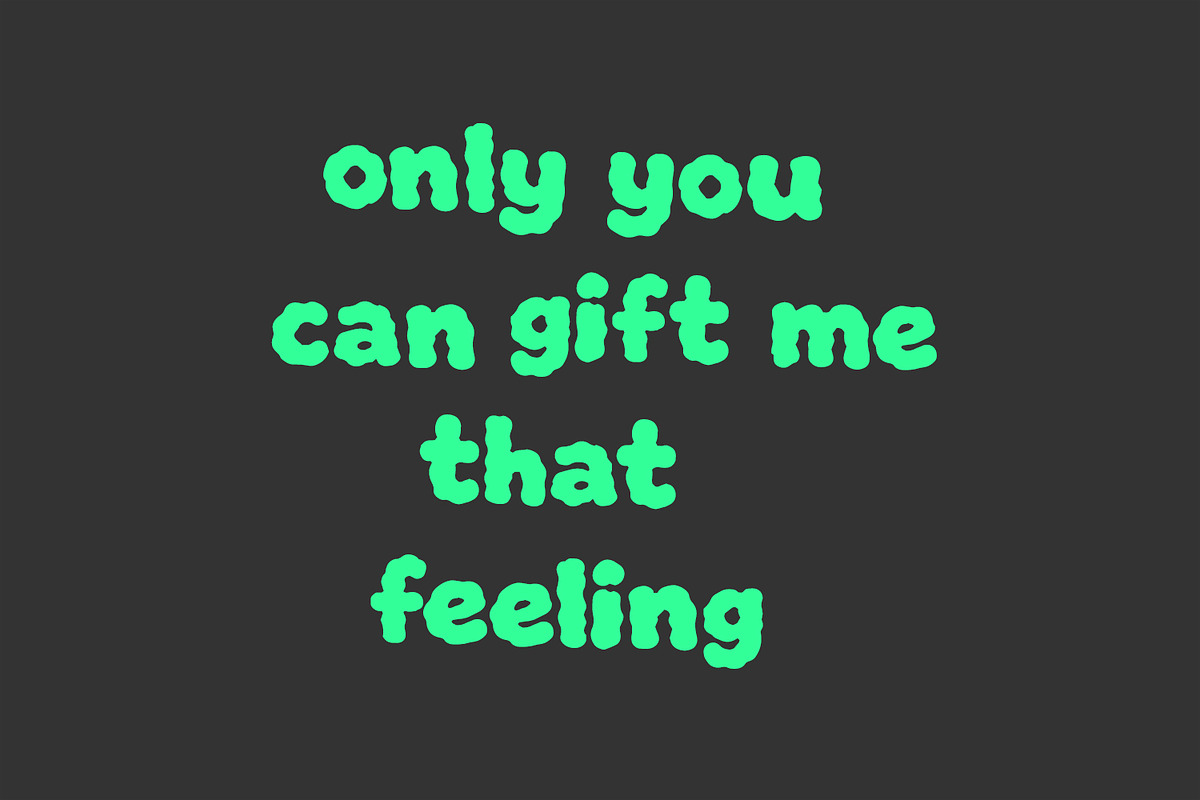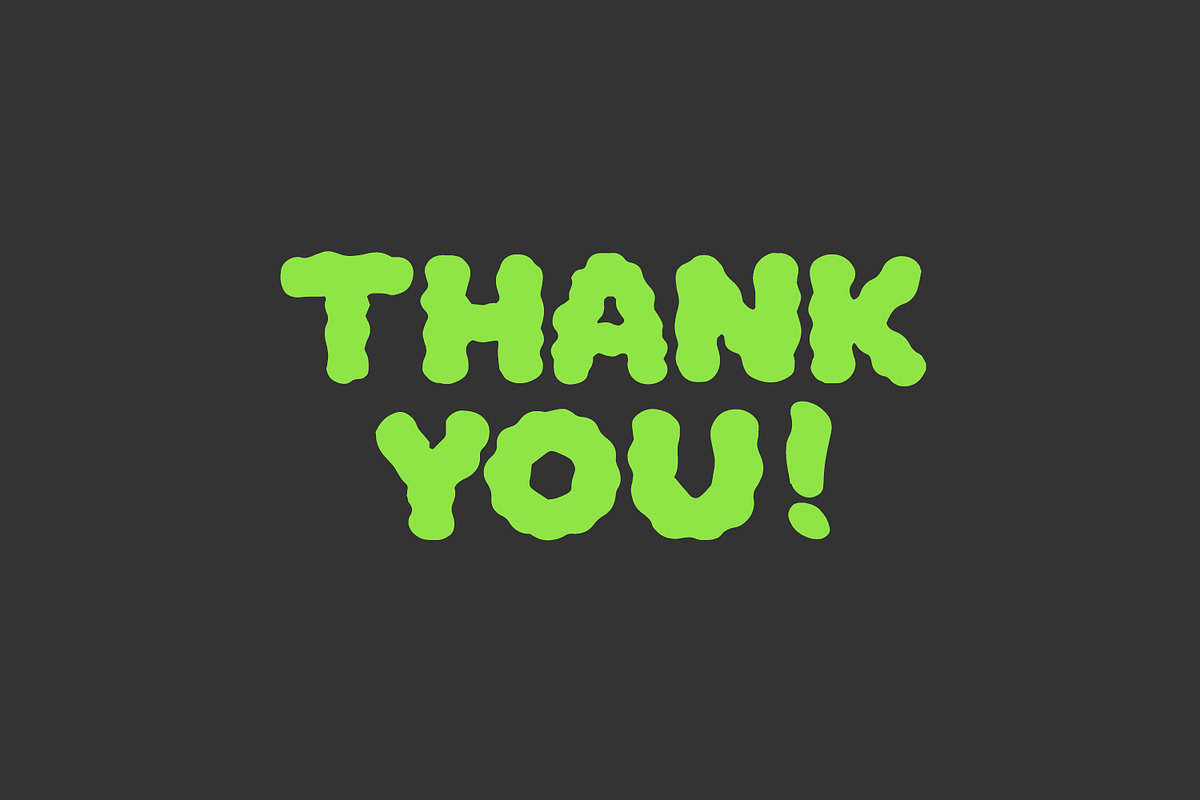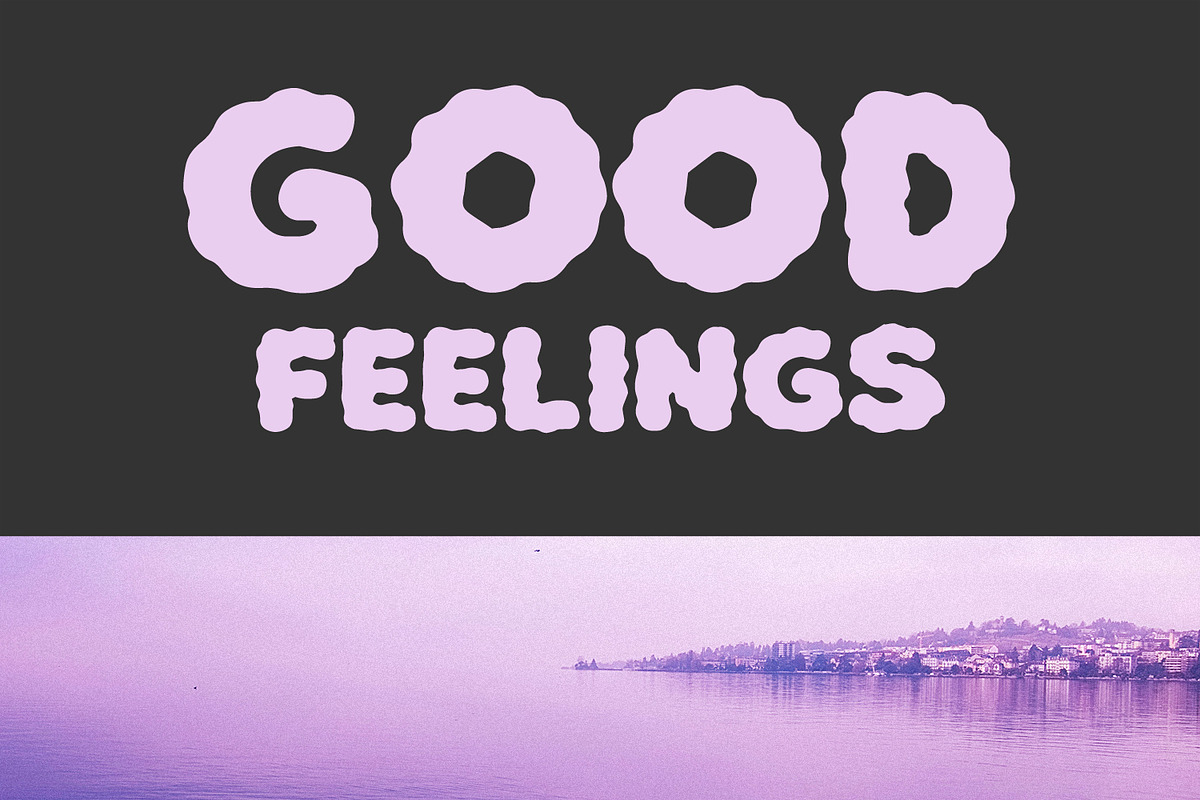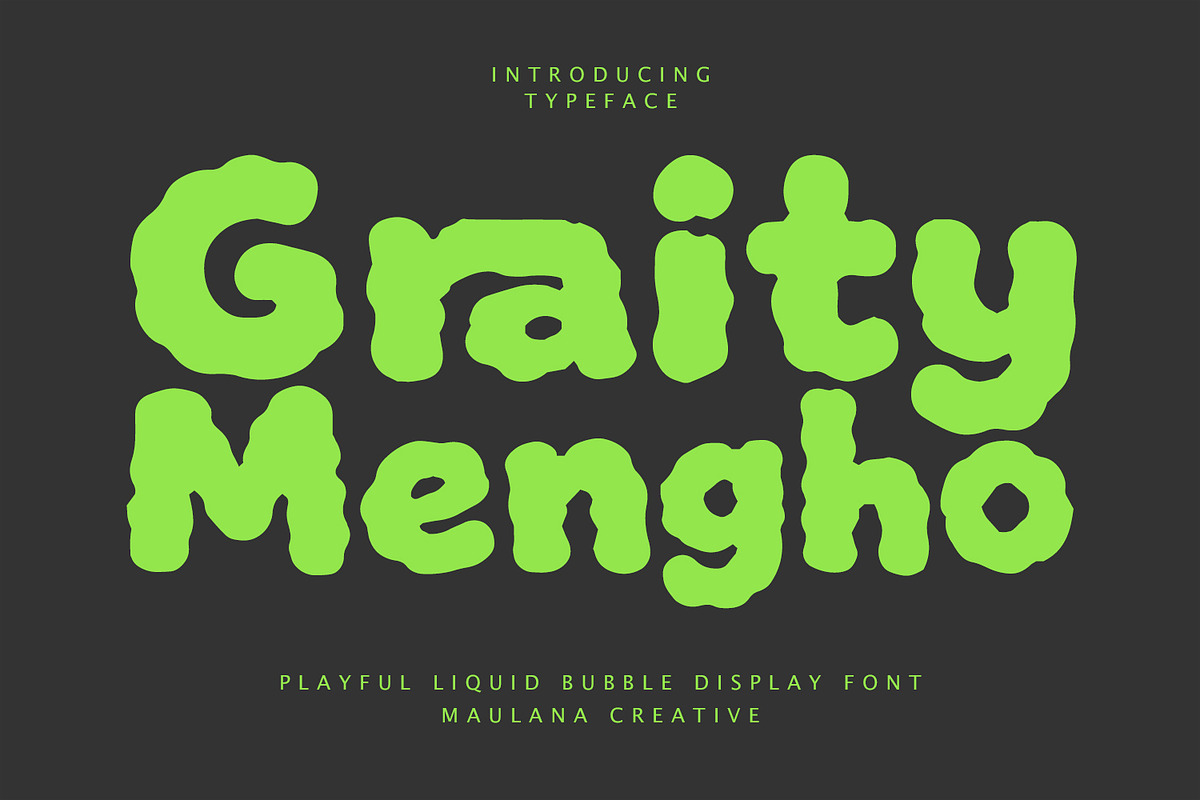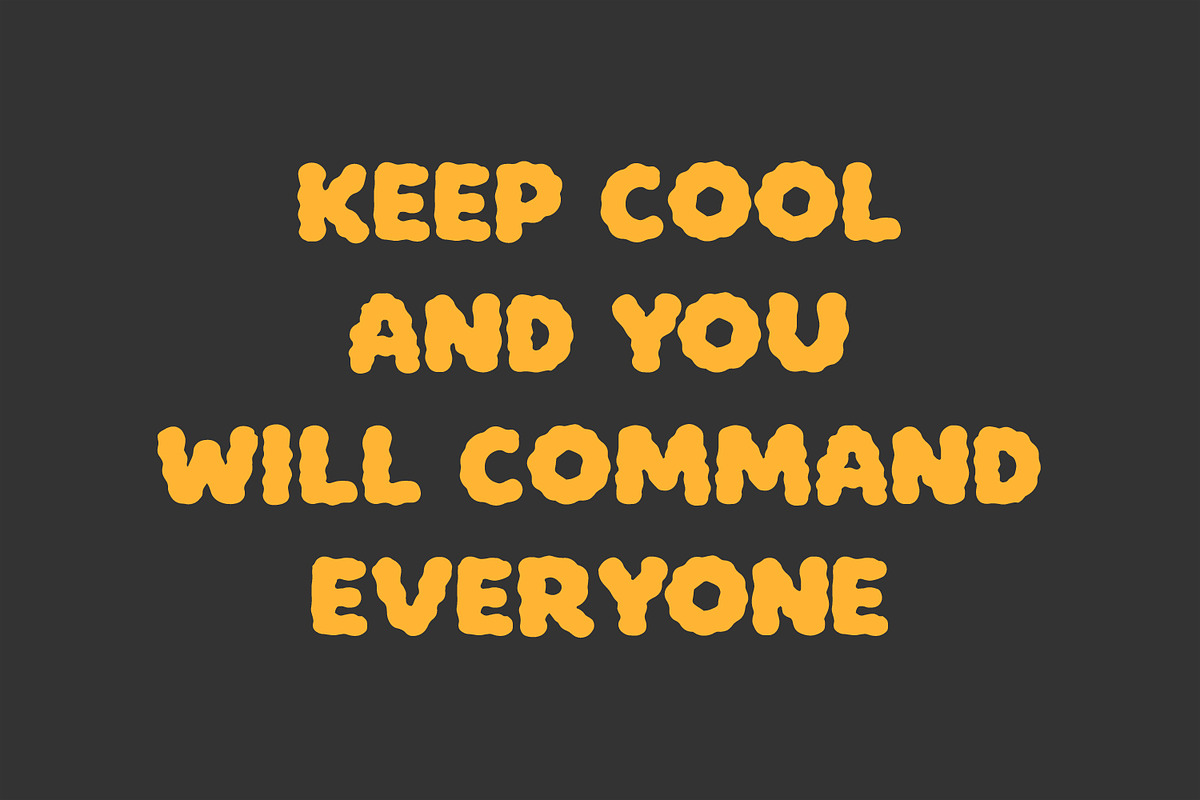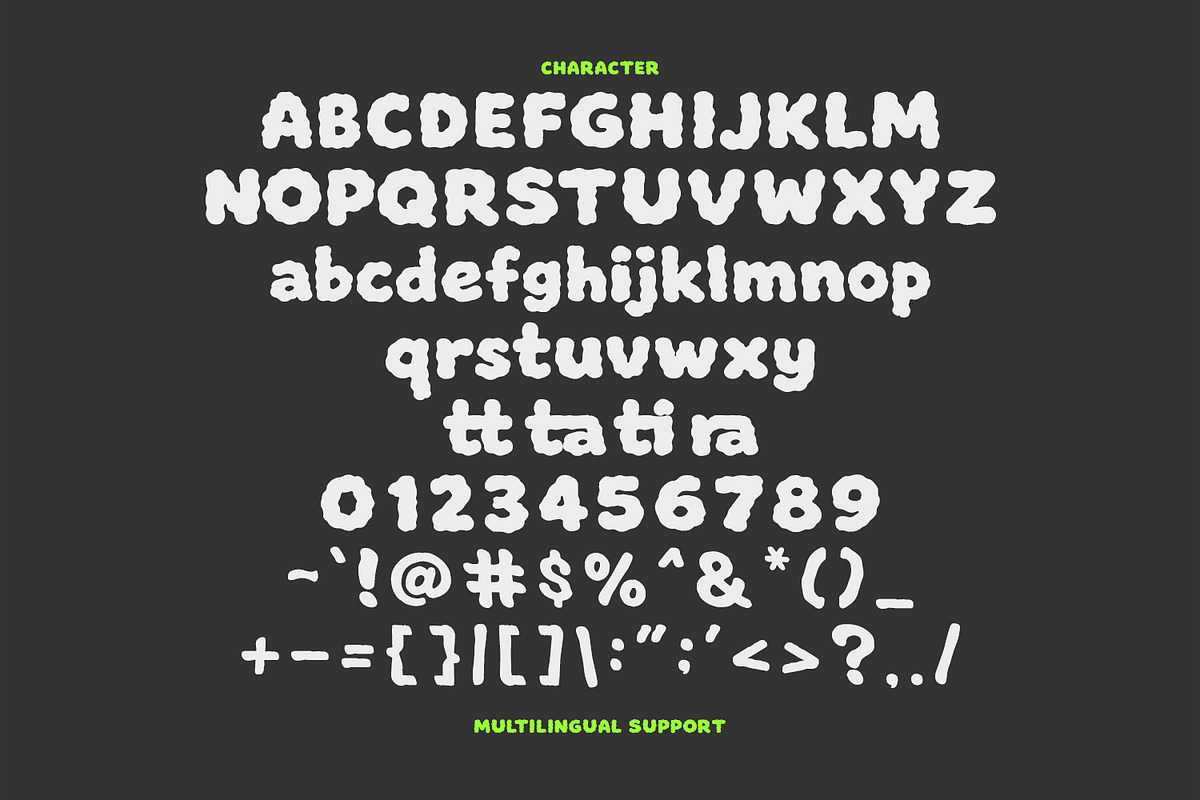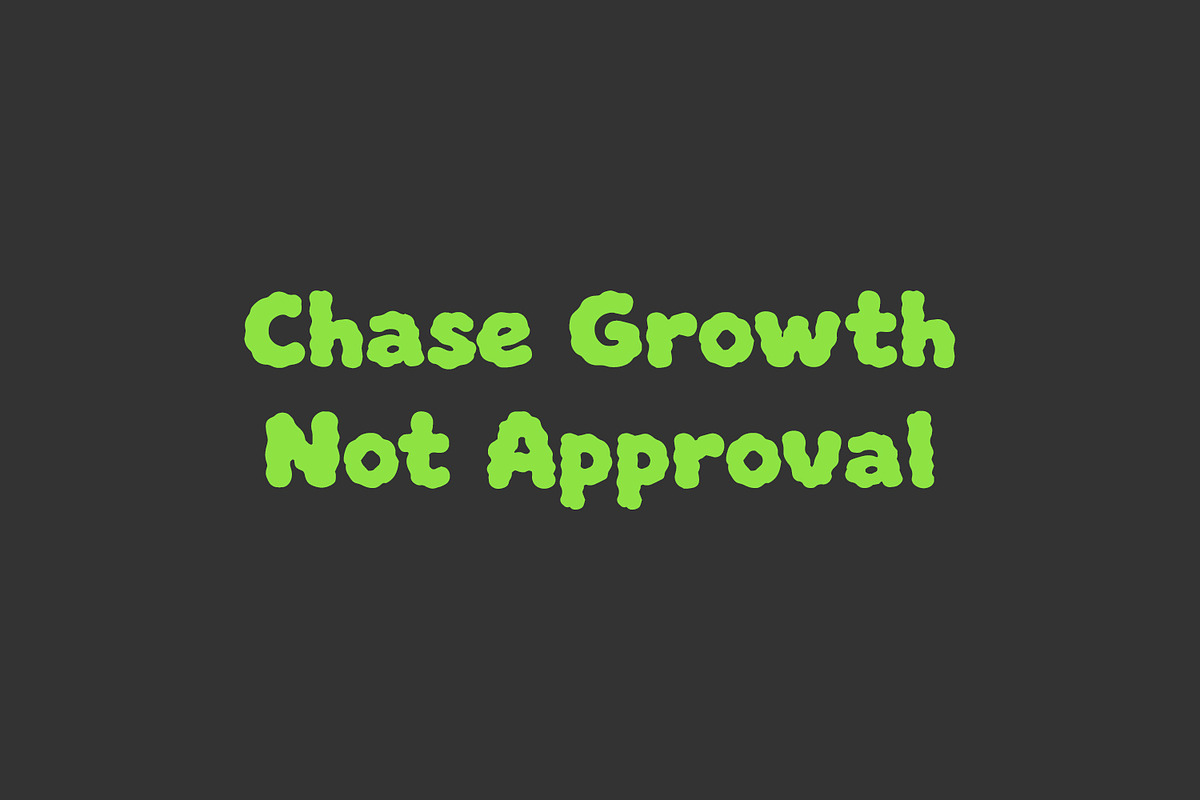
Graity Mengho Playful Liquid Bubble
Graity Mengho is a vibrant and energetic display font that captures the fluid motion of liquid and the soft, rounded edges of bubbles. Its unique, "wobbly" silhouette gives it a hand-drawn, organic feel that is perfect for bold headlines, creative branding, and youthful designs. Whether you're working on a poster, product packaging, or digital content, this font adds a splash of fun and a modern, trippy aesthetic to any project.
- Full character set
- Numbers, Punctuation, and Symbols
- Ligatures for a natural handwriting flow